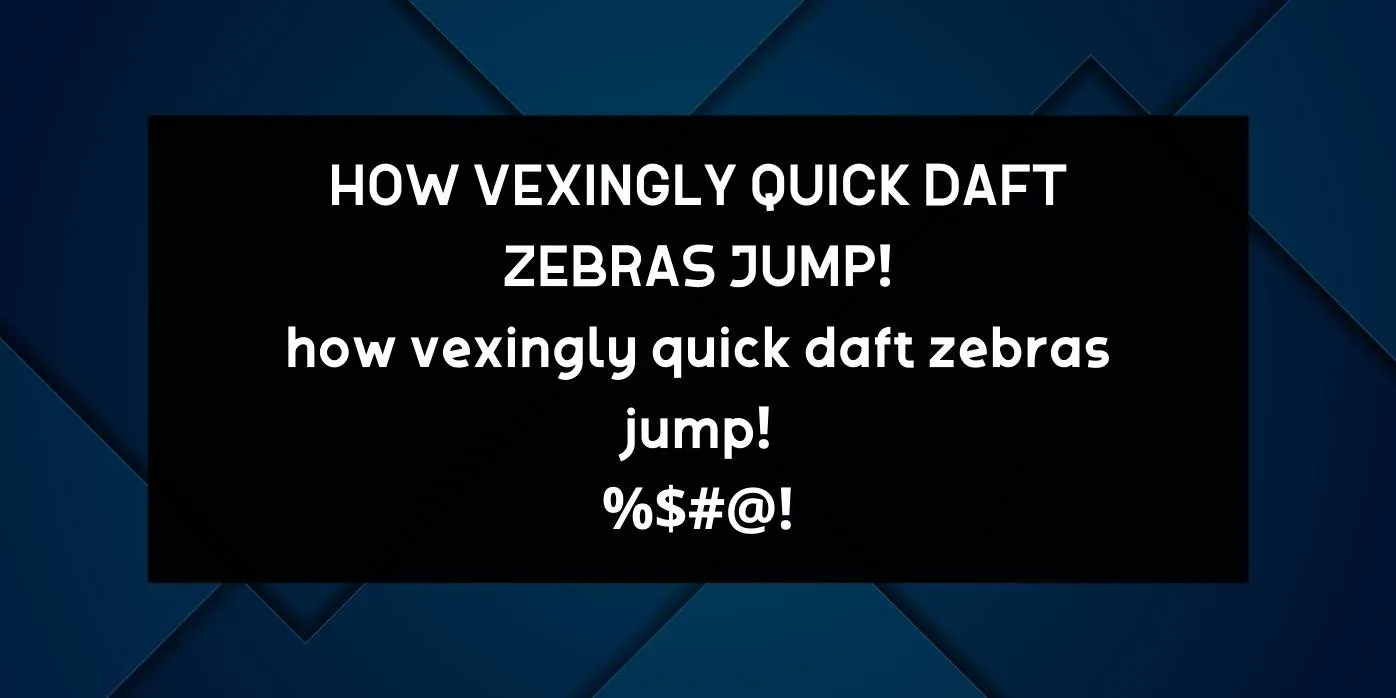
Bosan Font
Bosan Font is a sans-serif style font that was created by Adrien Coquet in 2013. The font was inspired by 1970s sci-fi and horror movies, as well as vintage video games. This font is perfect for creating retro-themed designs. The Font family includes regular, bold, and italic styles.
The regular style is perfect for body text, while the bold and italic styles are ideal for headlines and titles. This Font includes a wide variety of special characters, including uppercase and lowercase letters, numbers, punctuation marks, and symbols. The glyphs in the Bosan Font have been carefully designed to create a vintage feel. You can also try the elegant bromello font and can make amazing stuff by pairing these typefaces.
The rounded edges and thick strokes give the font a retro appearance, while the clean lines keep it looking modern.